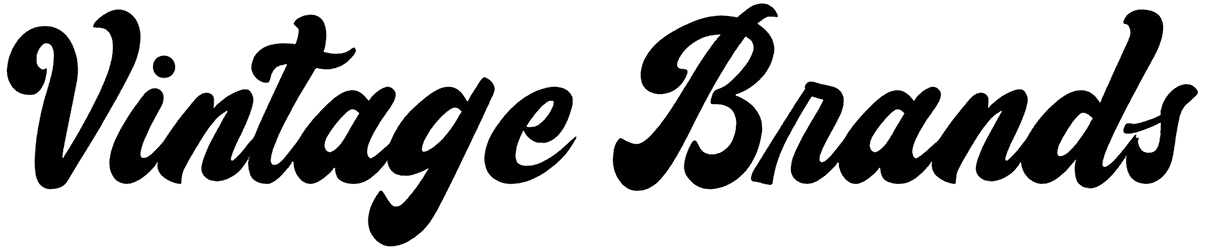
Vintage Brands Font
We may be introducing you to Vintage Brands, but this font will surprise you with how good it is at promoting modern brands as well. However, you’ll be doing it with a groovy style, and it’s obvious that a pleasant retro theme is bound to tag along.
Soon, you’re gonna thank us for sharing this vintage baseball font with you when you get to play with it in your classic designs for the entertainment industry, coffee shops, clothes stores, and more.